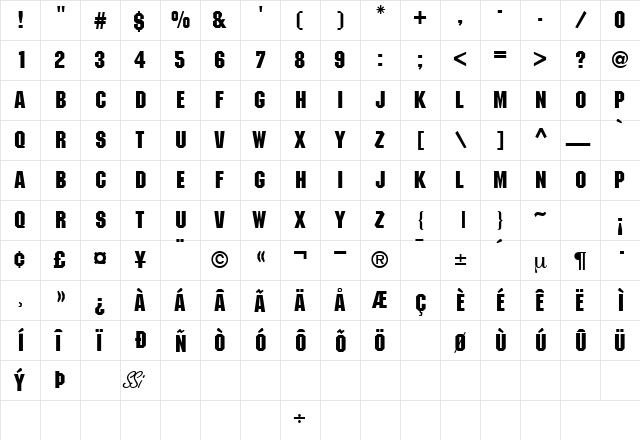
AutomatonCapsSSK Regular
Design Context for AutomatonCapsSSK Typeface
AutomatonCapsSSK offers clean, dependable letterforms without strong stylistic allegiance, making it a practical choice for designers who need flexibility.